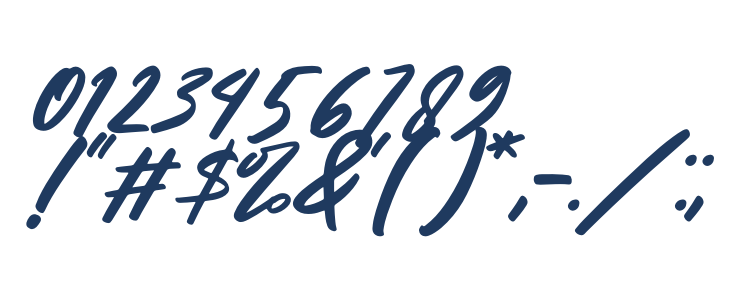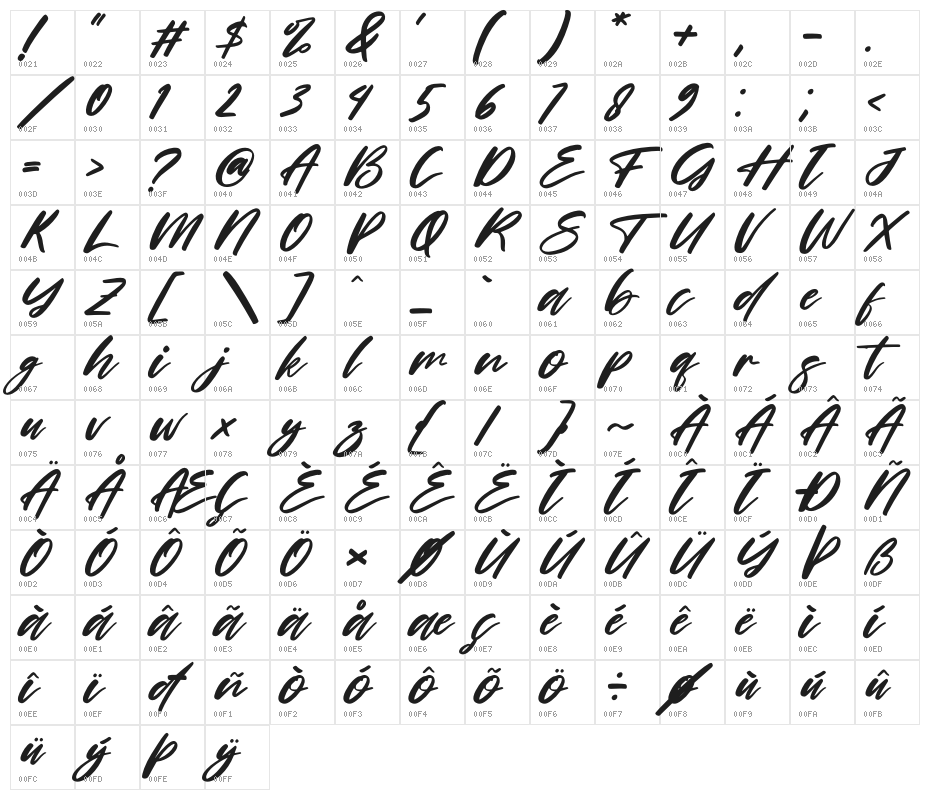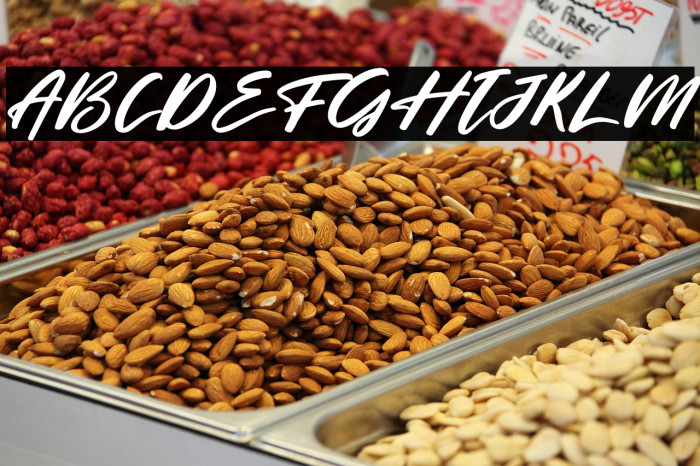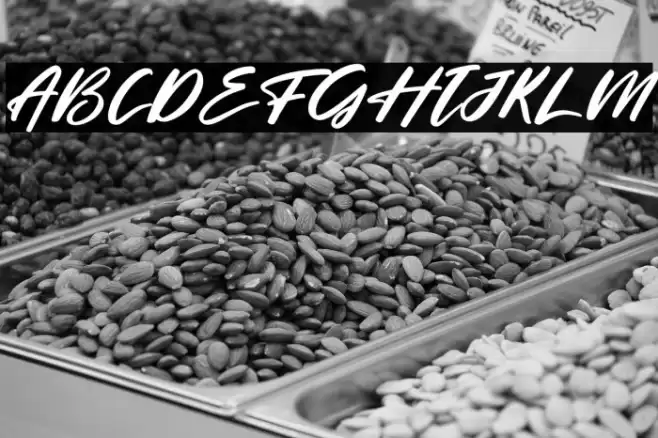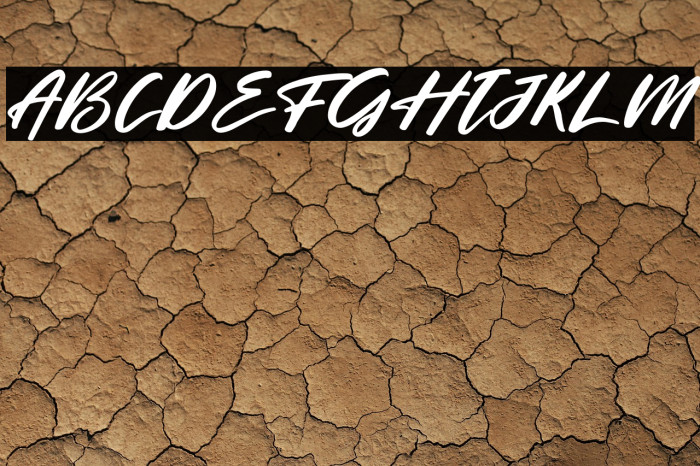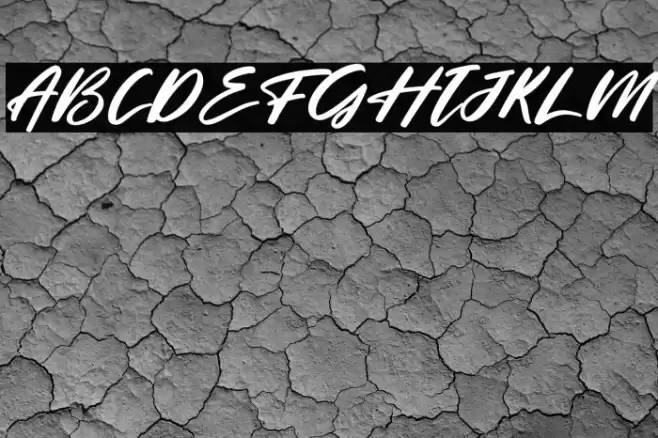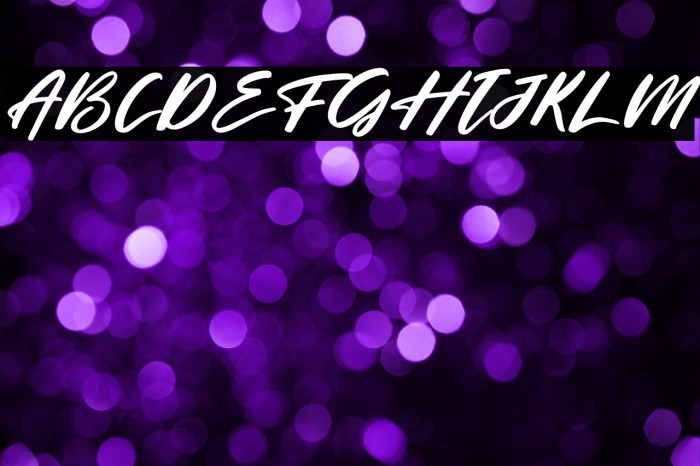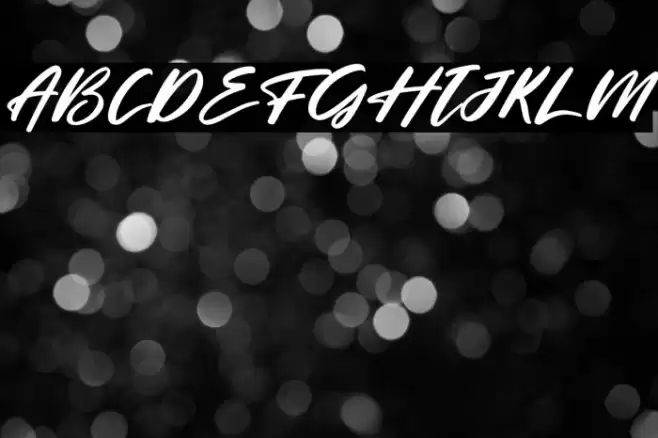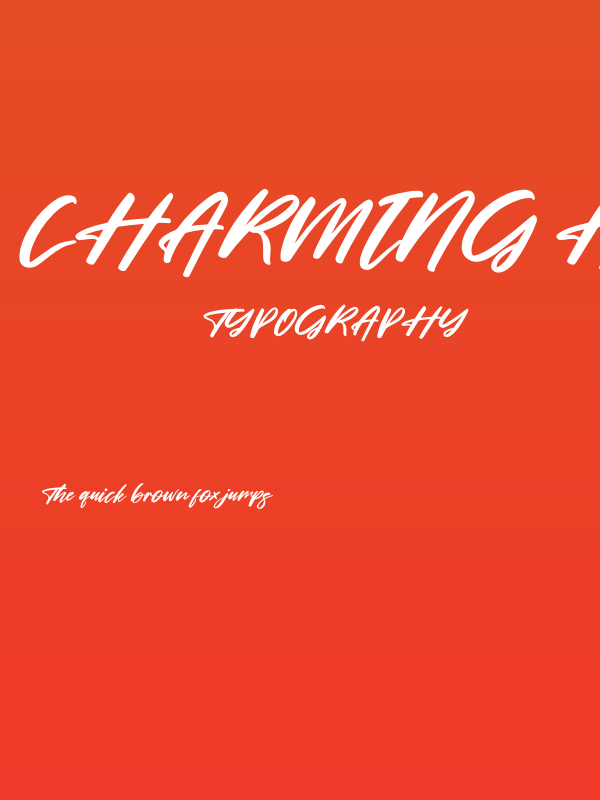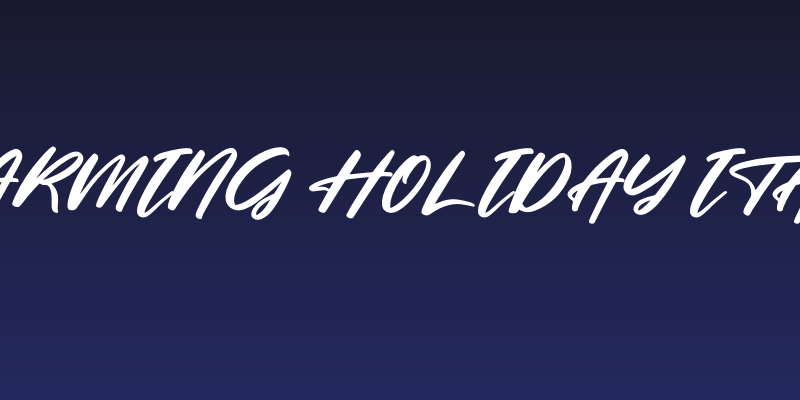
Charming Holiday Italic Font
Charming Holiday Italic Description
This font exudes a playful and festive charm, characterized by its flowing, cursive style that mimics a handwritten script. The letters are elegantly slanted, adding a dynamic and lively feel to the text. The strokes are bold and confident, with a consistent thickness that ensures readability while maintaining an artistic flair. The uppercase letters are slightly more structured, providing a nice contrast to the more whimsical lowercase characters. The numbers and special characters are designed with the same fluidity, making them seamlessly integrate with the alphabet. This font is perfect for creating eye-catching designs that require a personal touch, such as holiday cards, invitations, or branding materials.
| Proposed Projects | Ideal for holiday cards, invitations, branding materials, and festive event signage. |